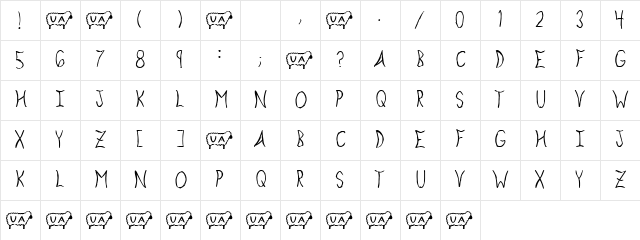
Exploding Sheep Regular
Design Context for Exploding Sheep Typeface
Exploding Sheep is a composed and adaptable typeface that performs quietly and consistently across a wide range of design contexts.